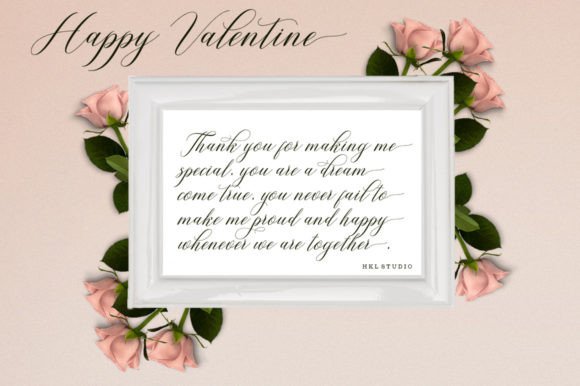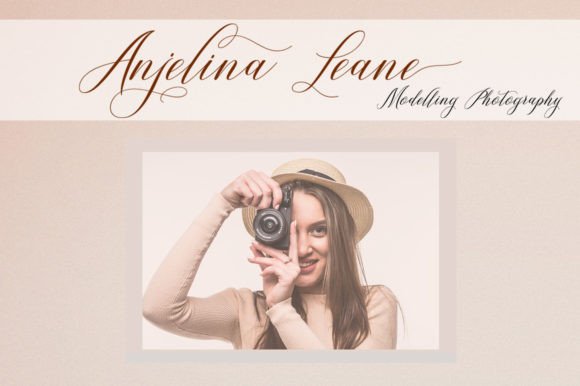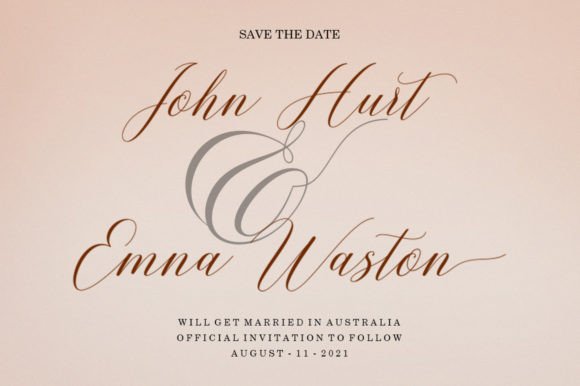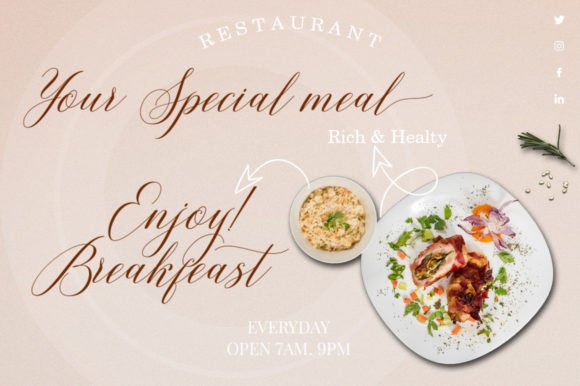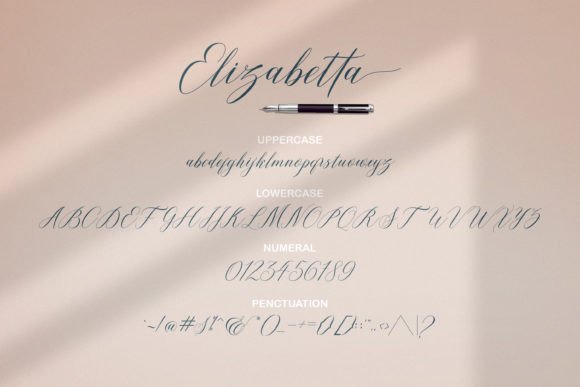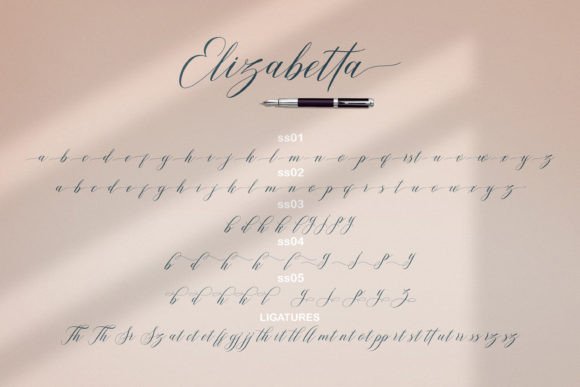
Discover the Elegance of Elizabetta Font: Elevate Your Design Projects
Are you on the hunt for a font that exudes sophistication, elegance, and a touch of modern flair? Look no further than the Elizabetta Font, a stunning handwritten typeface that is sure to capture your heart. Designed with meticulous attention to detail, Elizabetta seamlessly blends classic calligraphic influences with a contemporary twist, making it the perfect addition to your design arsenal.
The Story Behind Elizabetta Font
Elizabetta is more than just a font – it’s a masterpiece crafted with passion and dedication. Its creator aimed to design a typeface that not only pays homage to traditional calligraphy but also feels fresh and modern. The result is a font that is both timeless and trendy, capable of elevating any project to new heights.
What Makes Elizabetta Font Stand Out?
- Exquisite Handwritten Style: Elizabetta boasts a beautiful, handcrafted look that adds a personal touch to any design. Its elegant strokes and fluid connections make it perfect for projects that require a sophisticated feel.
- Classy Calligraphic Influences: The font’s roots in traditional calligraphy are evident in its graceful lines and refined appearance. However, it has been carefully adapted to ensure it feels contemporary and relevant.
- Versatility: Whether you’re working on a wedding invitation, a luxury brand logo, or a high-end product packaging, Elizabetta proves to be incredibly versatile. Its ability to adapt to different design contexts makes it a valuable asset for any designer.
- Easy to Read and Use: Despite its elegant appearance, Elizabetta remains highly legible, ensuring that your message is conveyed clearly and effectively. Additionally, its user-friendly design makes it easy to incorporate into your projects, even for those with limited design experience.
How to Use Elizabetta Font in Your Projects
Integrating Elizabetta into your design workflow is straightforward. Here are a few ideas to get you started:
- Wedding and Event Design: Create stunning wedding invitations, save-the-date cards, or event posters that set the tone for an elegant celebration.
- Branding and Logo Design: Use Elizabetta to craft a luxurious brand identity that stands out from the competition. Its unique charm is sure to leave a lasting impression on your customers.
- Packaging Design: Elevate your product packaging with Elizabetta’s sophisticated look. Perfect for high-end products, cosmetics, or gourmet foods, it adds a touch of class and refinement.
- Stationery and Paper Goods: Design beautiful stationery sets, journals, or greeting cards that showcase Elizabetta’s elegance and versatility.
Tips for Getting the Most Out of Elizabetta Font
To truly make Elizabetta shine in your designs, consider the following tips:
- Experiment with Colors: While Elizabetta looks stunning in classic black and white, don’t be afraid to experiment with different colors. Soft pastels, rich jewel tones, or metallic finishes can add an extra layer of sophistication.
- Play with Pairings: Elizabetta pairs beautifully with a variety of fonts. Try combining it with a clean sans-serif for a modern contrast or with another script font for a more romantic, layered look.
- Pay Attention to Details: Take advantage of Elizabetta’s intricate details and flourishes. These elements can be used to create visual hierarchy, add emphasis, or simply to enhance the aesthetic appeal of your design.
| Font Name | Elizabetta Font |
| Author | HKL Studio |
Elizabetta Font is a true gem in the world of typography. Its exquisite handwritten style, combined with its classy calligraphic influences and modern freshness, makes it an indispensable tool for designers and crafters alike. Whether you’re looking to add a touch of elegance to your branding, create stunning invitations, or simply elevate your design projects, Elizabetta is sure to exceed your expectations. So why wait? Fall in love with Elizabetta and bring your projects to the highest levels of creativity and sophistication.